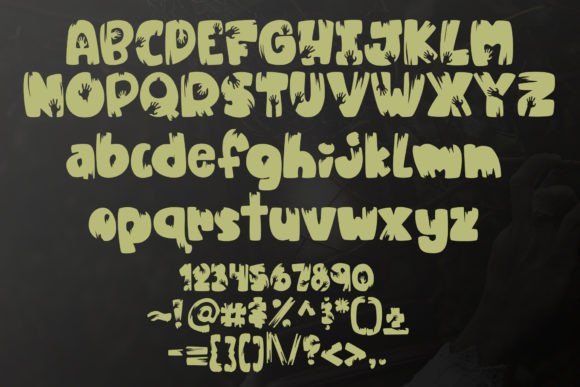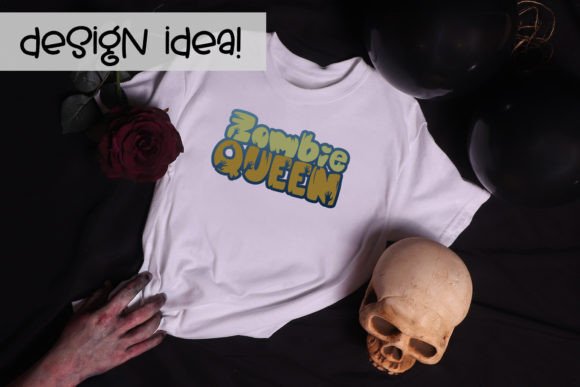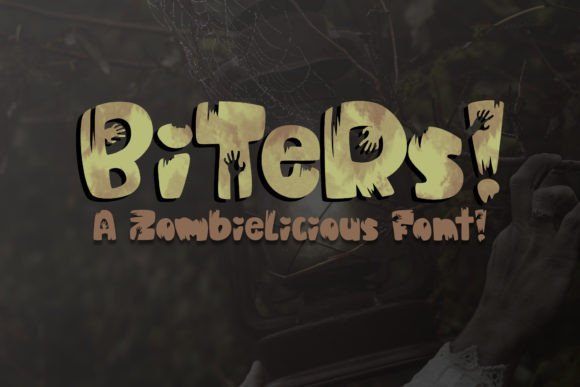
Unleash the Fun and Creepiness with Biters Font: The Ultimate Choice for Designers and Crafters
Are you looking for a font that can add a touch of fun and creepiness to your next project? Look no further than Biters, the unique zombie script font that combines the best of both worlds. With its fat lettered design and incorporated zombie hands, Biters is the perfect fit for Halloween events, coloring books, and any other project that requires a dash of spookiness and whimsy.
The Unique Features of Biters Font
Biters font is not your average font. Its distinctive design features fat letters with zombie hands incorporated within the design, making it a standout from the crowd. The font’s zombie hands add a creepy touch, while the fat letters provide a playful and fun vibe. This unique combination makes Biters the perfect font for designers and crafters who want to create something that will grab attention.
Perfect for Halloween Events and Coloring Books
Halloween is just around the corner, and Biters font is the perfect choice for any Halloween-themed project. Whether you’re designing invitations, decorations, or party favors, Biters font will add a touch of spookiness and fun to your creations. Additionally, the font’s playful design makes it an excellent choice for coloring books, especially those with a Halloween theme.
Get Creative with Biters Font
One of the best things about Biters font is its versatility. The font can be used for a wide range of projects, from DIY crafts to commercial designs. Designers and crafters can use Biters font to create:
- Halloween-themed invitations, decorations, and party favors
- Coloring books and activity sheets for kids
- Unique and eye-catching posters and flyers
- Customized t-shirts, mugs, and other merchandise
- Creepy and fun graphics for social media and blogs
Why Designers and Crafters Love Biters Font
Designers and crafters love Biters font for many reasons. Here are a few:
- Unique Design: Biters font has a unique design that sets it apart from other fonts.
- Versatile: Biters font can be used for a wide range of projects, from DIY crafts to commercial designs.
- Fun and Creepy: The font’s design is both fun and creepy, making it perfect for Halloween-themed projects.
Tips for Using Biters Font
Biters font is a unique and versatile font that combines fun and creepiness in one design. With its fat lettered zombie script and incorporated zombie hands, Biters font is perfect for Halloween events, coloring books, and any other project that requires a dash of spookiness and whimsy. Designers and crafters love Biters font for its unique design, ease of use, and versatility. Whether you’re a professional designer or a DIY crafter, Biters font is sure to inspire your next project. So why wait? Get creative with Biters font and let your imagination run wild!